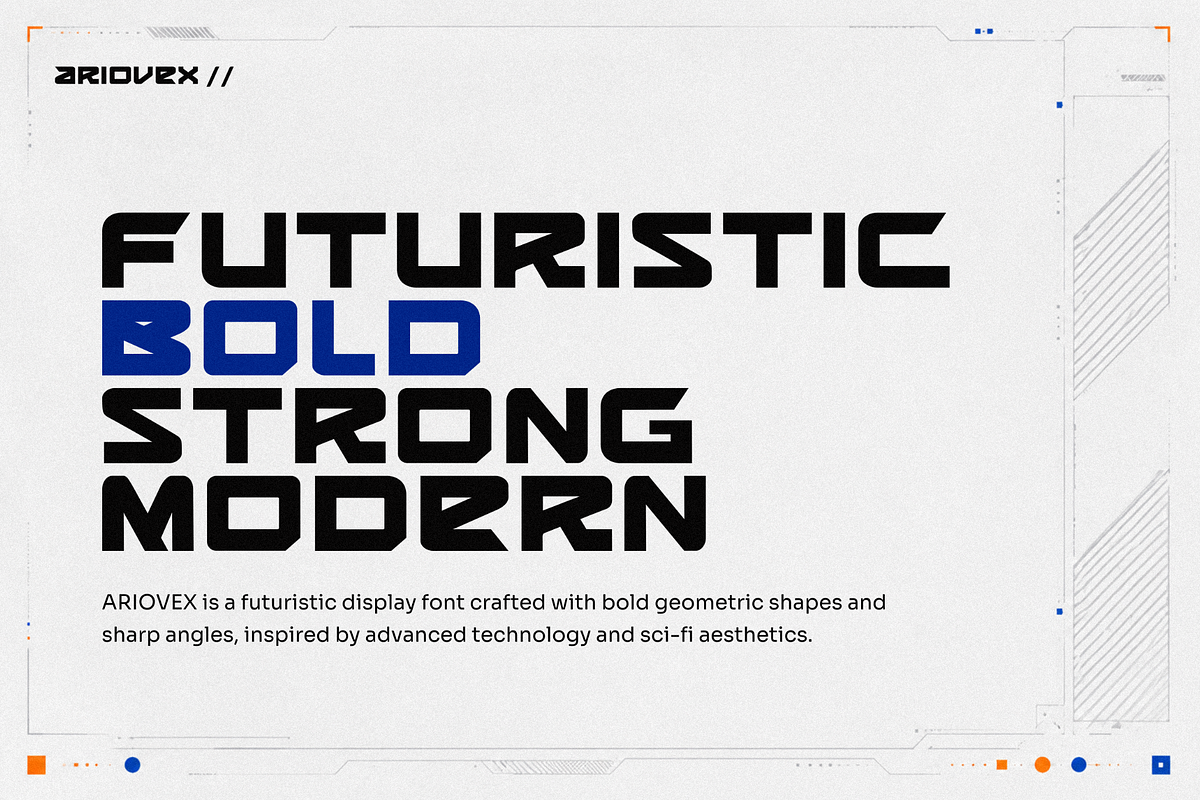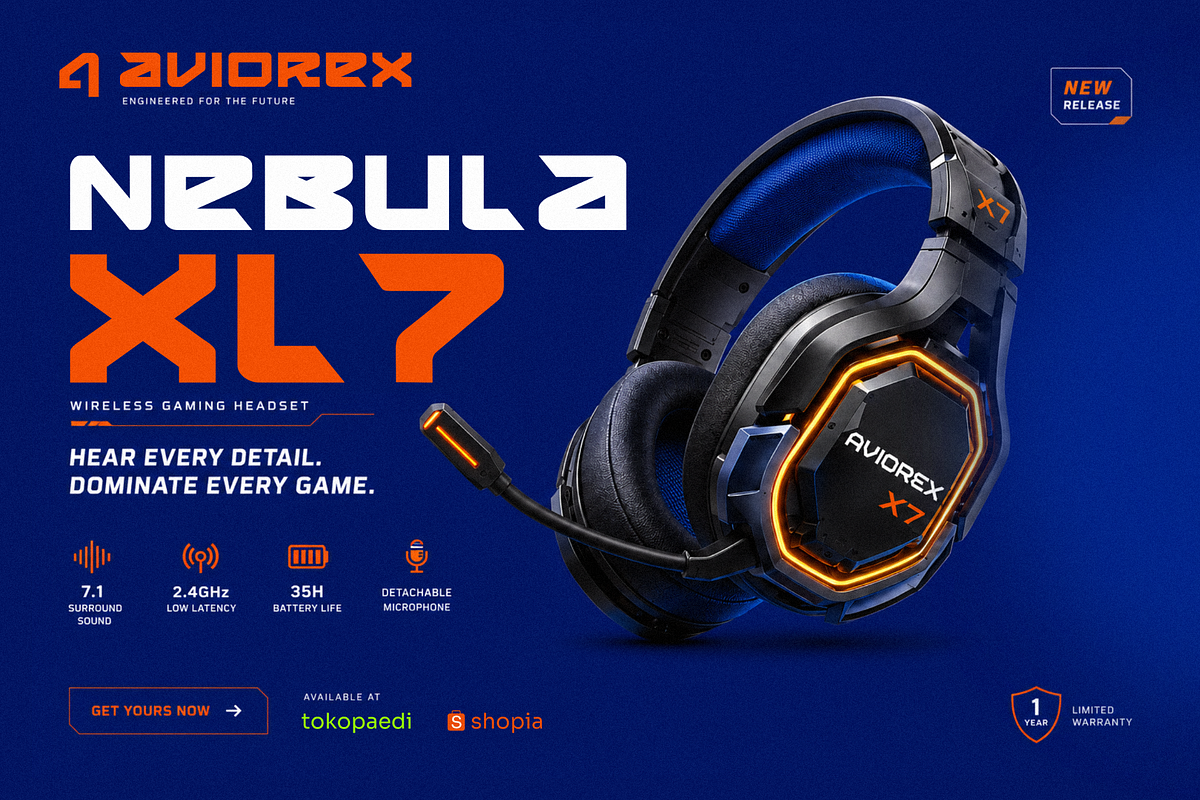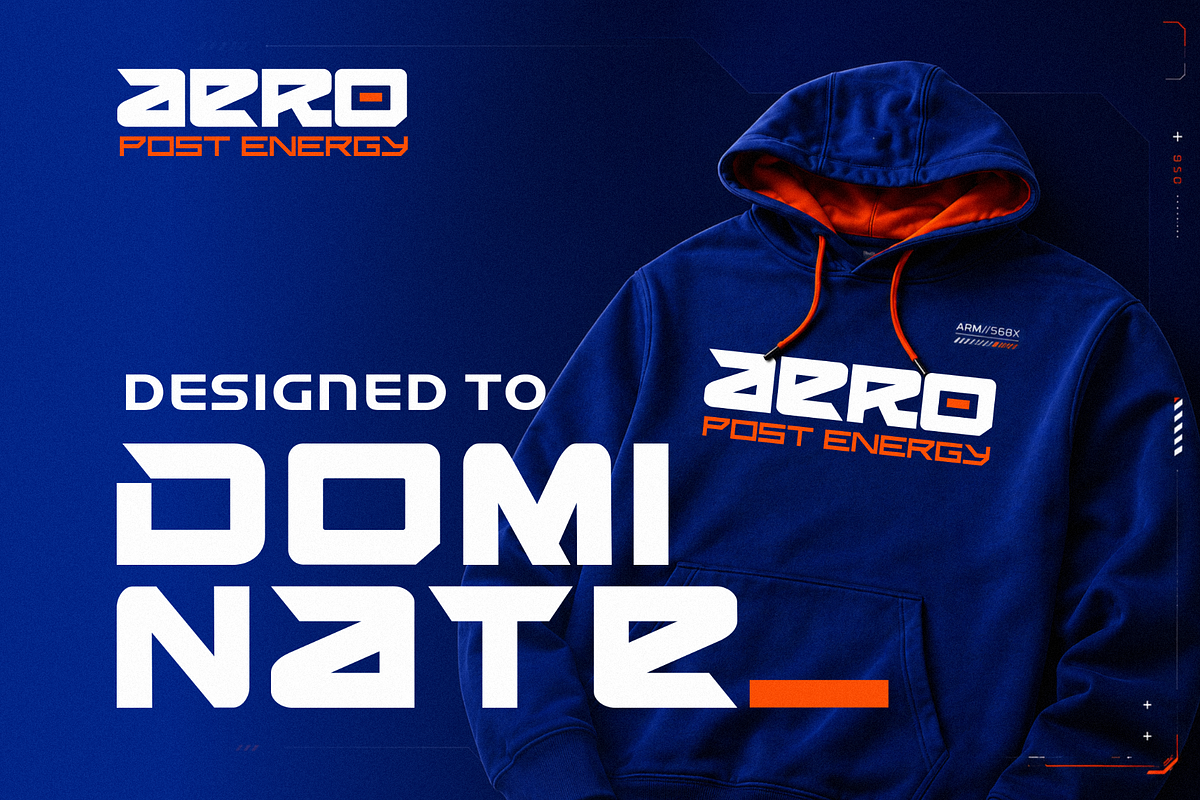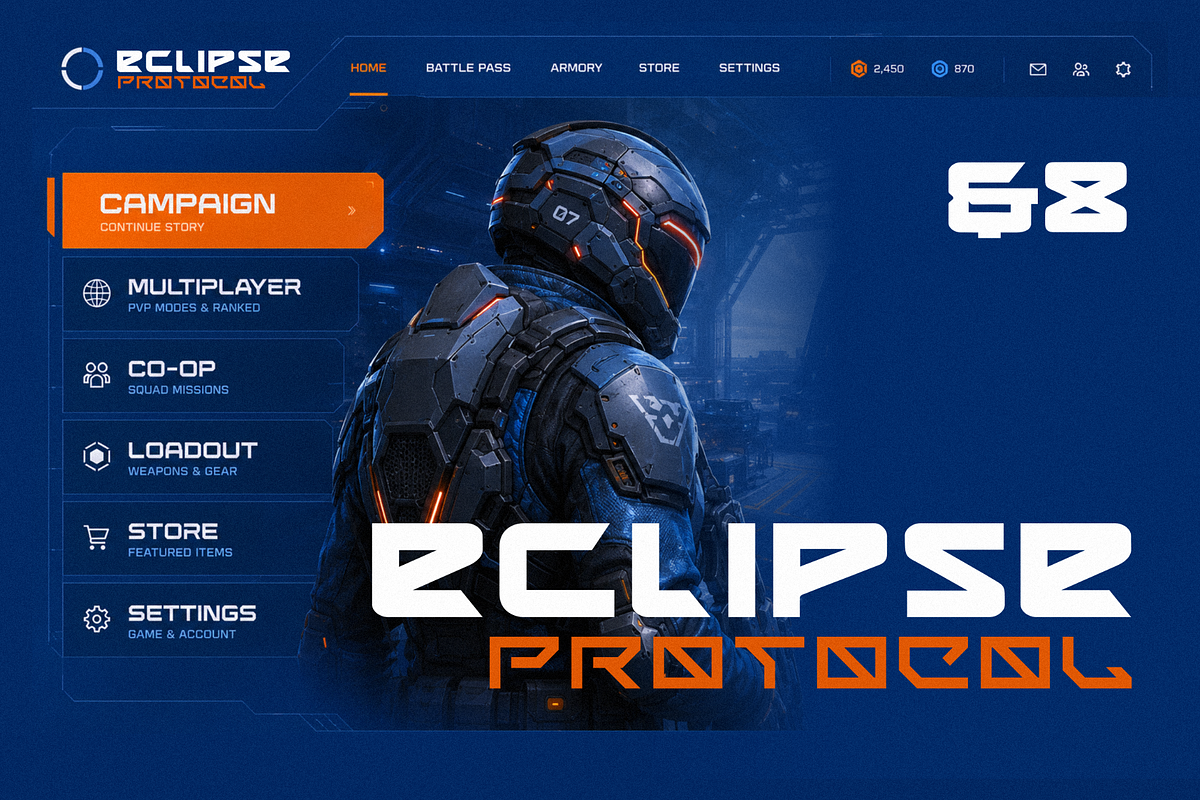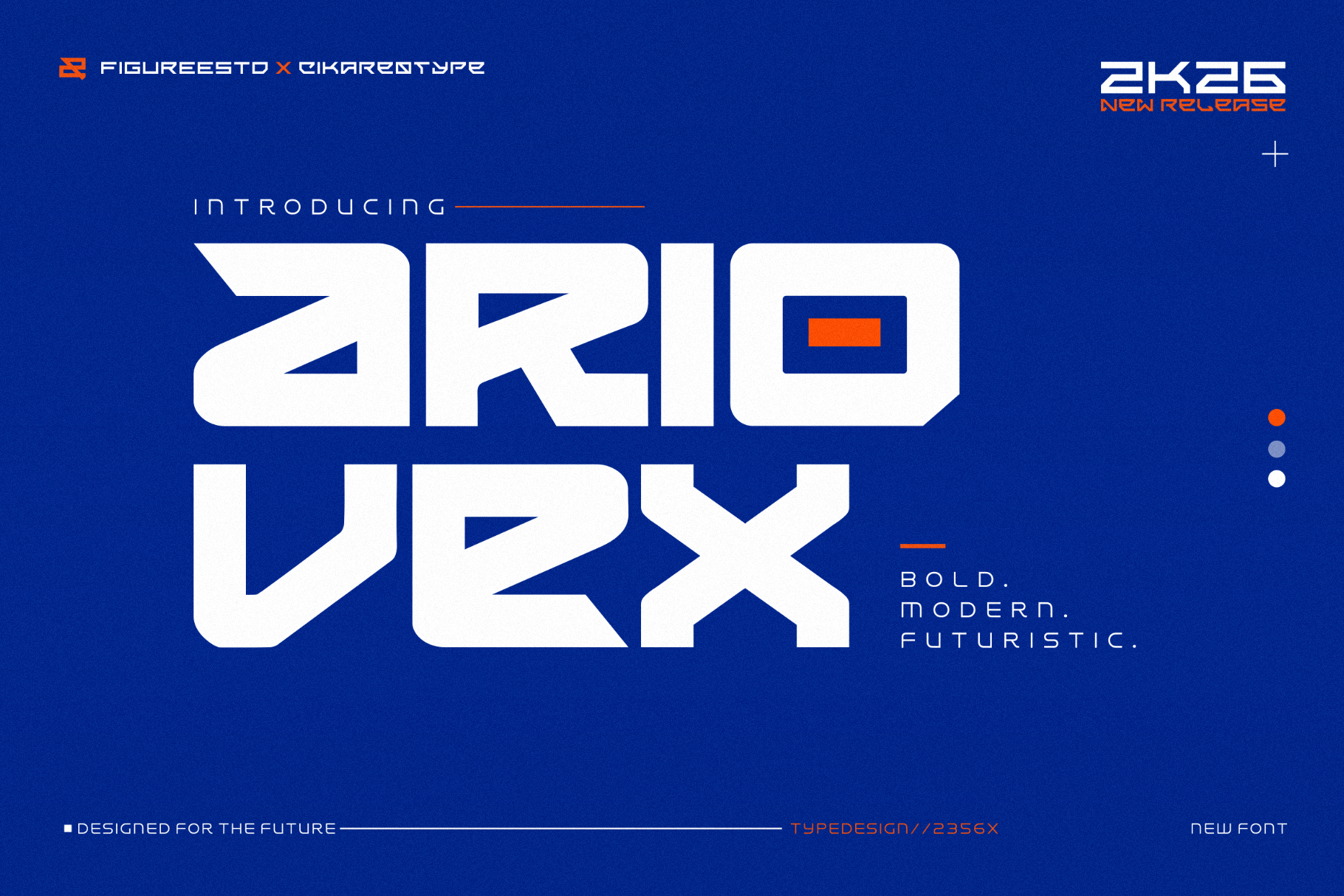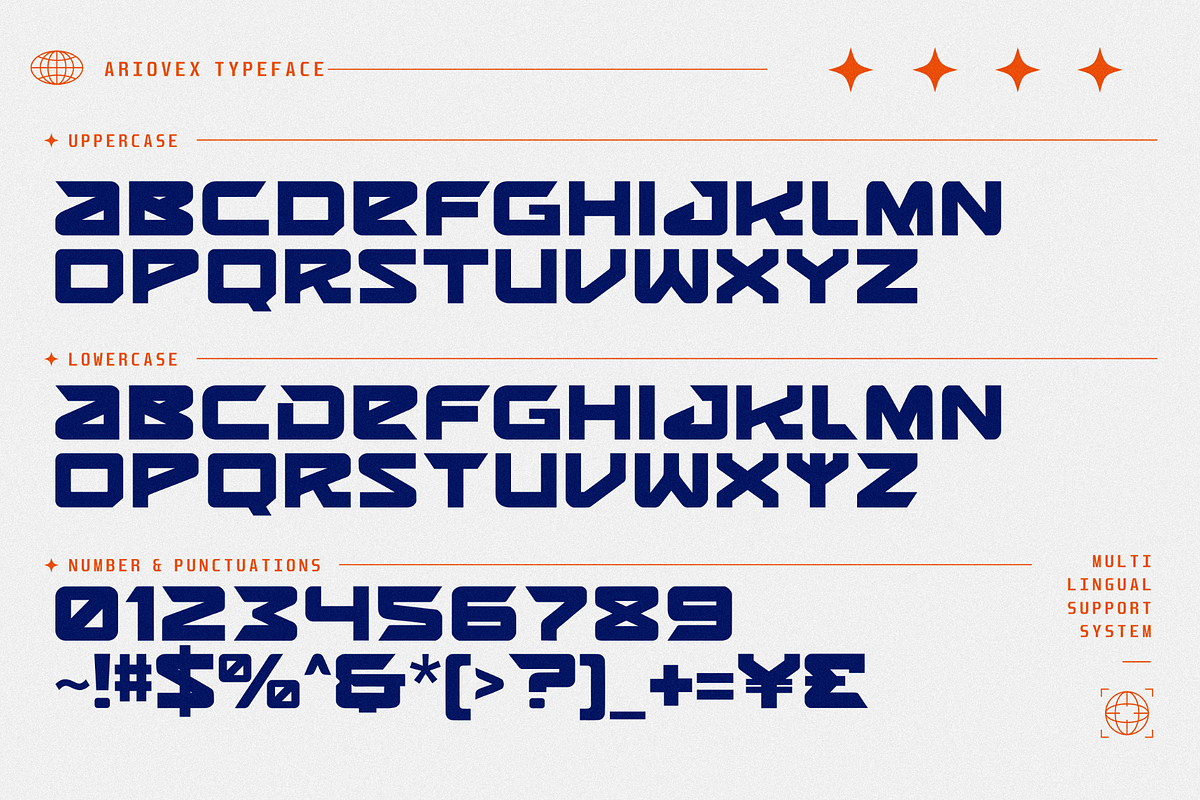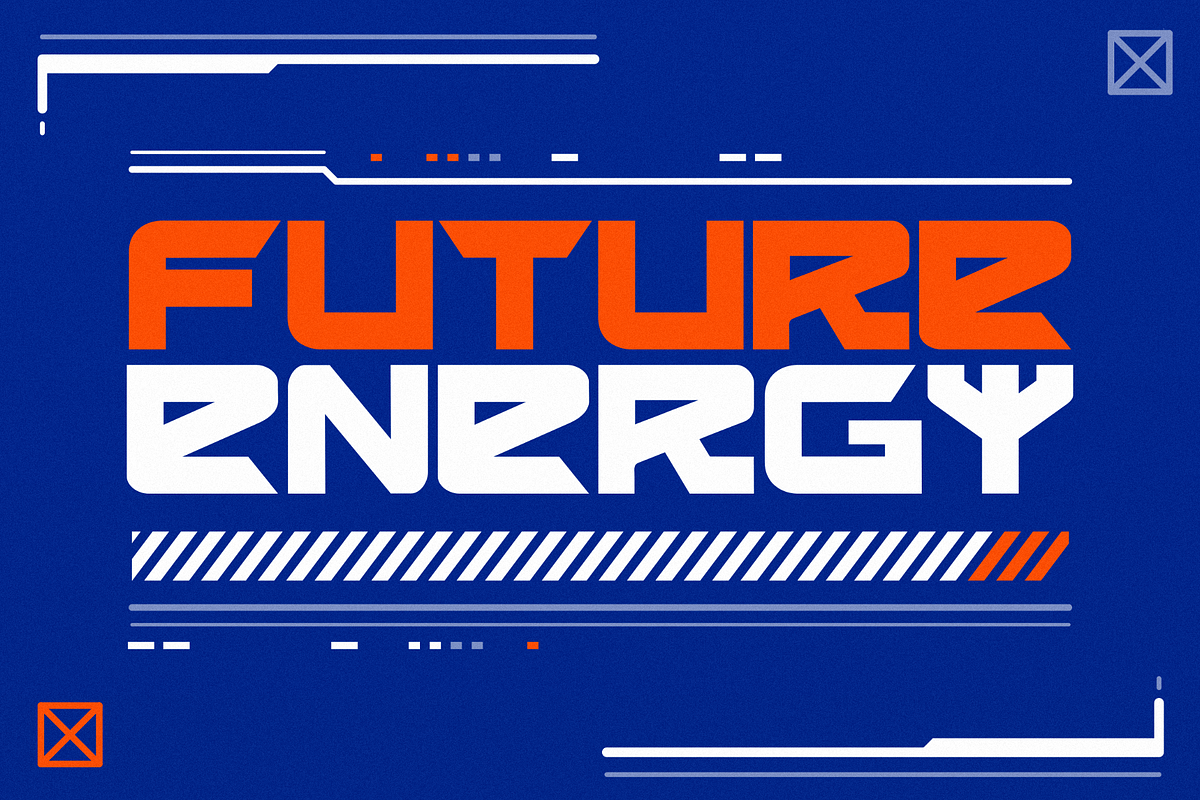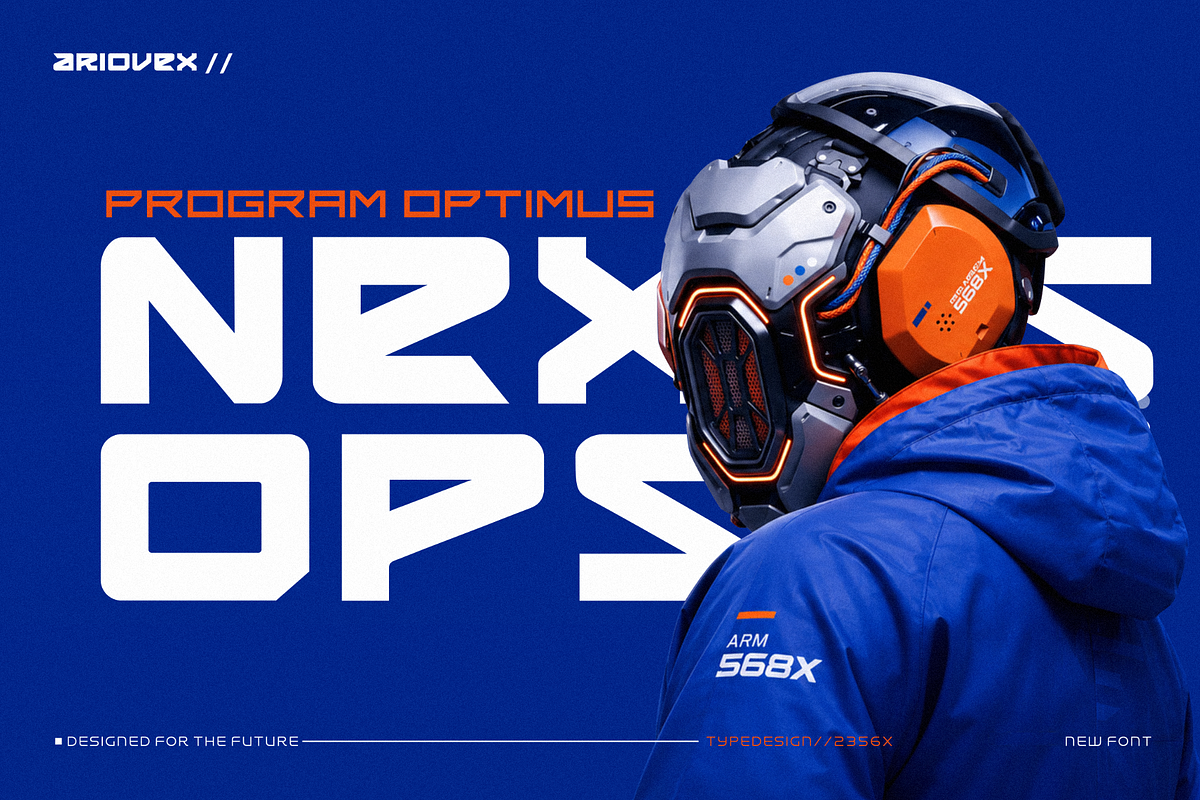
Ariovex - Futuristic Display Font
Ariovex is a futuristic display font created for visual projects that need sharp structure, technical character, and high-impact typography. Its geometric letterforms, angular cuts, and extended proportions give headlines a modern science-fiction tone while keeping the text clear and controlled.
This typeface works especially well for technology posters, game titles, digital advertisements, interface graphics, product presentations, event promotions, video thumbnails, album artwork, streaming visuals, and cinematic title sequences. Its distinctive construction helps short words, headlines, and display text become the central focus of a composition.
Ariovex includes regular and italic styles, allowing designers to create contrast within the same visual system. Use the regular style for stable headings and structured layouts, then introduce Ariovex Italic for movement, speed, or directional emphasis. Both styles can be combined across title treatments, information panels, promotional graphics, and digital campaigns.
The all-caps character set includes numbers, punctuation, and symbols, making Ariovex suitable for more than basic headlines. It can support dates, pricing, technical information, interface labels, scores, statistics, subtitles, and supporting details. Multilingual support also provides more flexibility for international and multi-language projects.
* Futuristic display font with geometric letterforms
* All-caps character set
* Numbers, punctuation, and symbols included
* Multilingual support
* Regular and italic styles
* Strong readability for large display text
* Suitable for both digital and print layouts
* Effective for titles, headlines, labels, and promotional text
* Consistent visual style across both font variations
Why Designers Love It
Designers choose Ariovex when a project needs a clear futuristic direction without relying on excessive decorative effects. The bold shapes establish a strong visual hierarchy, while the controlled geometry makes the font easy to combine with grids, interface elements, technical lines, gradients, and abstract backgrounds.
The two included styles make it easier to build varied layouts without introducing an unrelated typeface. Ariovex Regular can anchor the main title, while Ariovex Italic can highlight secondary phrases, action words, dates, or supporting information. This creates contrast while maintaining consistency throughout the design.
Its wide range of characters also helps designers complete full compositions using one coordinated type family. Headlines, numbers, event details, interface labels, and multilingual text can share the same visual language.
Give your next project a sharper technological identity with Ariovex. From game titles and digital interfaces to posters, videos, and promotional graphics, this futuristic display font helps important messages appear structured, energetic, and immediately recognizable.